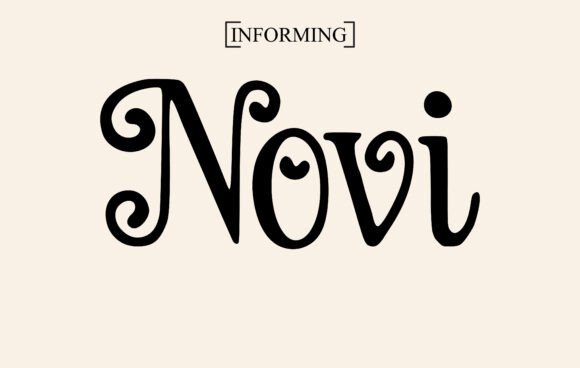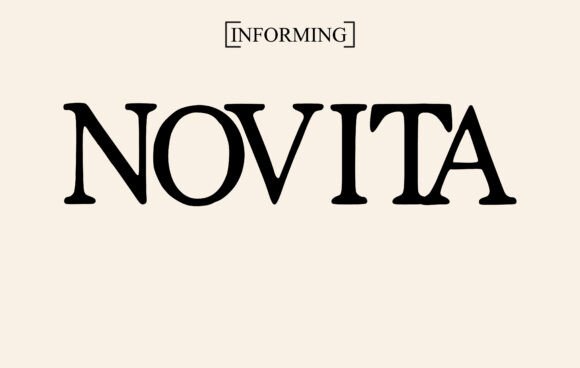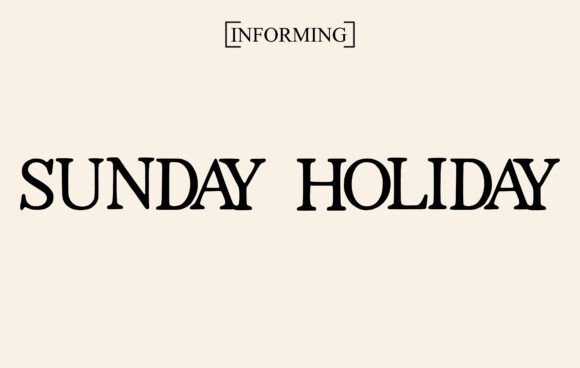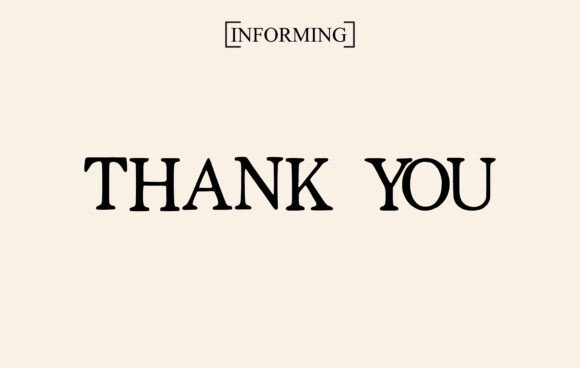
Novi Font
About the Novi Font
The Novi Font offers a perfect balance of form and function for your design needs. This font is designed to be a true favorite and it has the potential to take your creative ideas to the highest level
Novi Font’s strong, confident strokes make it ideal for headlines, branding applications, and short, impactful text on posters or packaging. Its legibility holds up well in slightly larger body text sizes, but it’s not suited for lengthy paragraphs or UI elements where smaller sizes are required; the weight might become visually overwhelming.
The font projects a modern and bold personality. It would be a strong choice for brands seeking to convey confidence and sophistication, perhaps in the tech, luxury goods, or fashion industries. Consider pairing Novi with a clean sans-serif like Lato for body text or a delicate script font like Great Vibes for added visual interest in invitations or branding materials.
A geometric sans-serif like Roboto could also work well, providing a contrasting yet complementary level of structure. Avoid pairing it with overly ornate or playful fonts which would clash with its sophisticated nature.